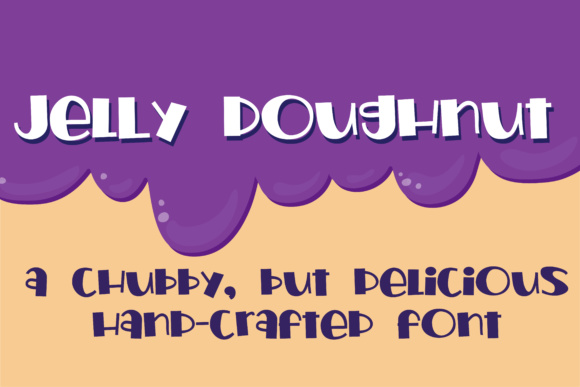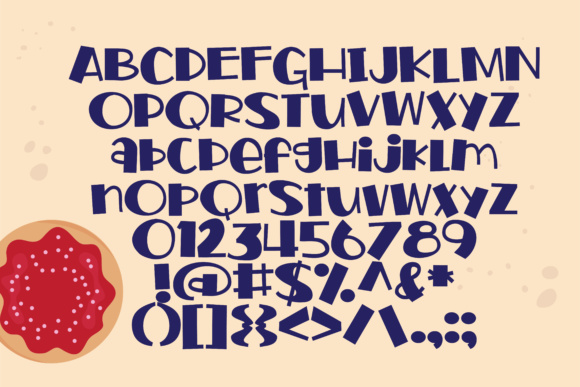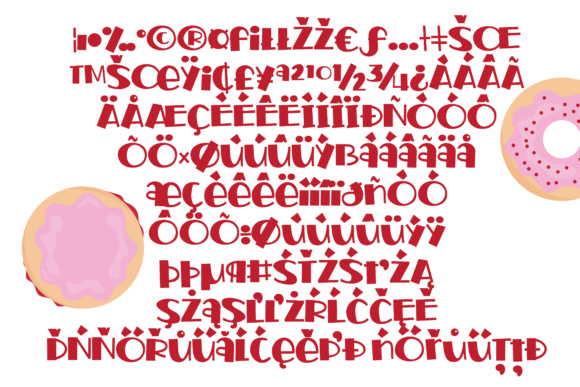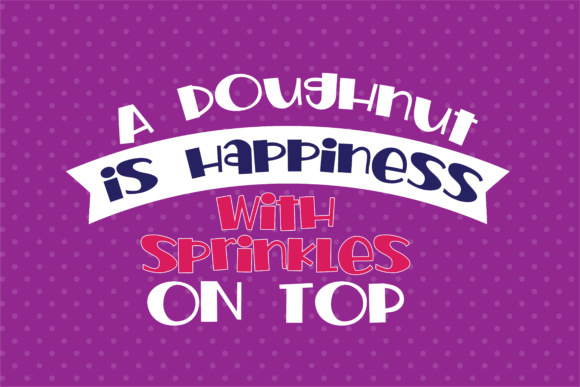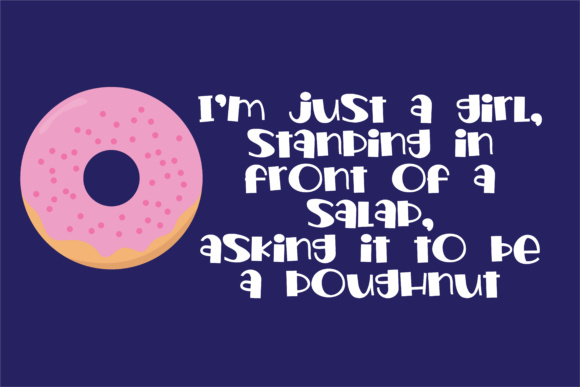
Jelly Doughnut Font
About Jelly Doughnut Font
Jelly Doughnut is a stunning bold and chubby font that has some serious thick and thin variations, giving your type a whimsical vibe. This font can be used in any application as it reads well as body text and headlines.